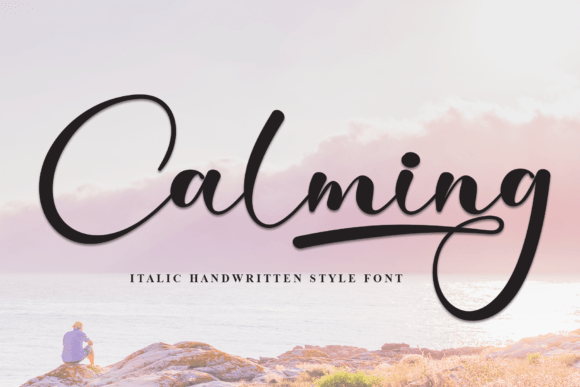
Find Your Calming Influence
Have you ever been stuck on a design project, struggling to find the perfect font to convey your message? You scroll through endless options, but nothing seems quite right. That’s where the Calming Font comes in – a stylish handwritten script font that brings a touch of elegance and modern flair to your work.
This versatile typeface is perfect for designers who want to add a personal, refined touch to their projects. Whether you’re creating branding materials, invitations, or social media graphics, the Calming Font is sure to bring warmth and sophistication to your designs. With its flowing strokes and organic curves, this font is a valuable asset for any designer looking to create a lasting impression.
Key Features of Calming Font
- Unique Characteristics: The font features a unique blend of soft, rounded shapes and subtle texture, creating a calming and soothing effect on the reader.
- Customization Options: The font includes a range of OpenType features, such as ligatures, swashes, and ornaments, allowing designers to add a personal touch to their work.
Review: Calming Font
As a designer, I’ve had the opportunity to work with the Calming Font, and here’s my honest review.
The Calming Font has some lovely features that make it a great choice for certain projects. Here are a few things that stand out:
- Its soft, rounded edges create a soothing and calming effect on the reader.
- The font’s gentle curves make it perfect for use in designs that require a sense of warmth and approachability.
- The font family is well-suited for use in titles, headings, and body text, making it a versatile choice for various design projects.
While the Calming Font has many great qualities, there are a few areas where it falls short:
- The font’s legibility can be compromised at smaller font sizes, making it less suitable for use in tiny text.
- The font’s simplicity can also make it feel a bit bland or uninteresting in certain contexts.
Overall, I think the Calming Font is a solid choice for designers who want to create a sense of calm and serenity in their designs. While it may not be the best choice for every project, it’s definitely worth considering for designs that require a soothing and approachable feel.